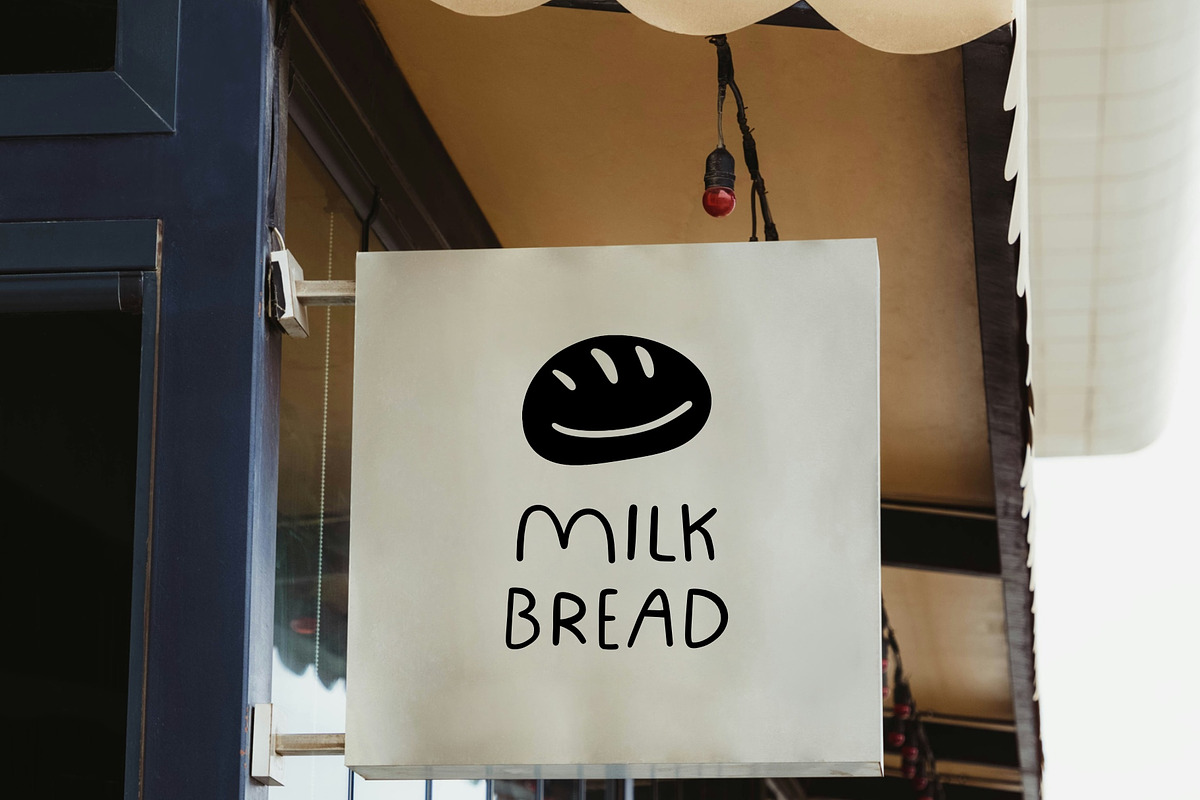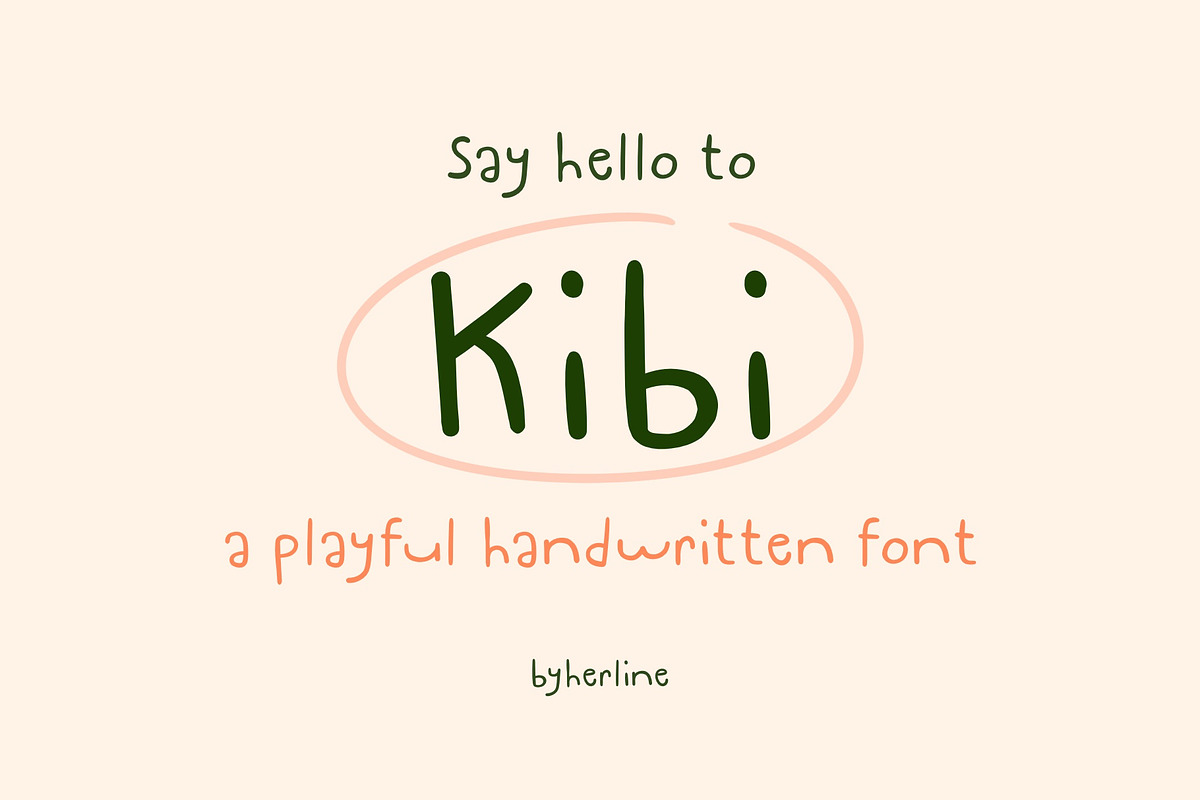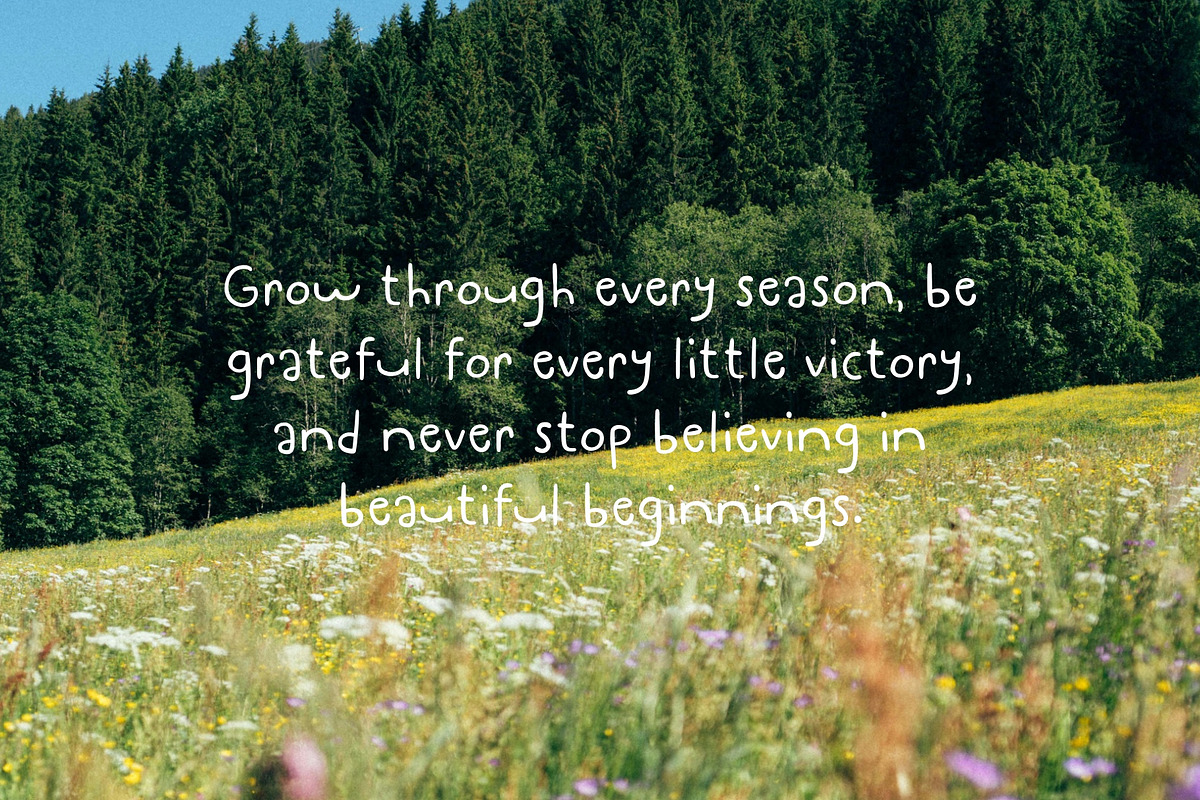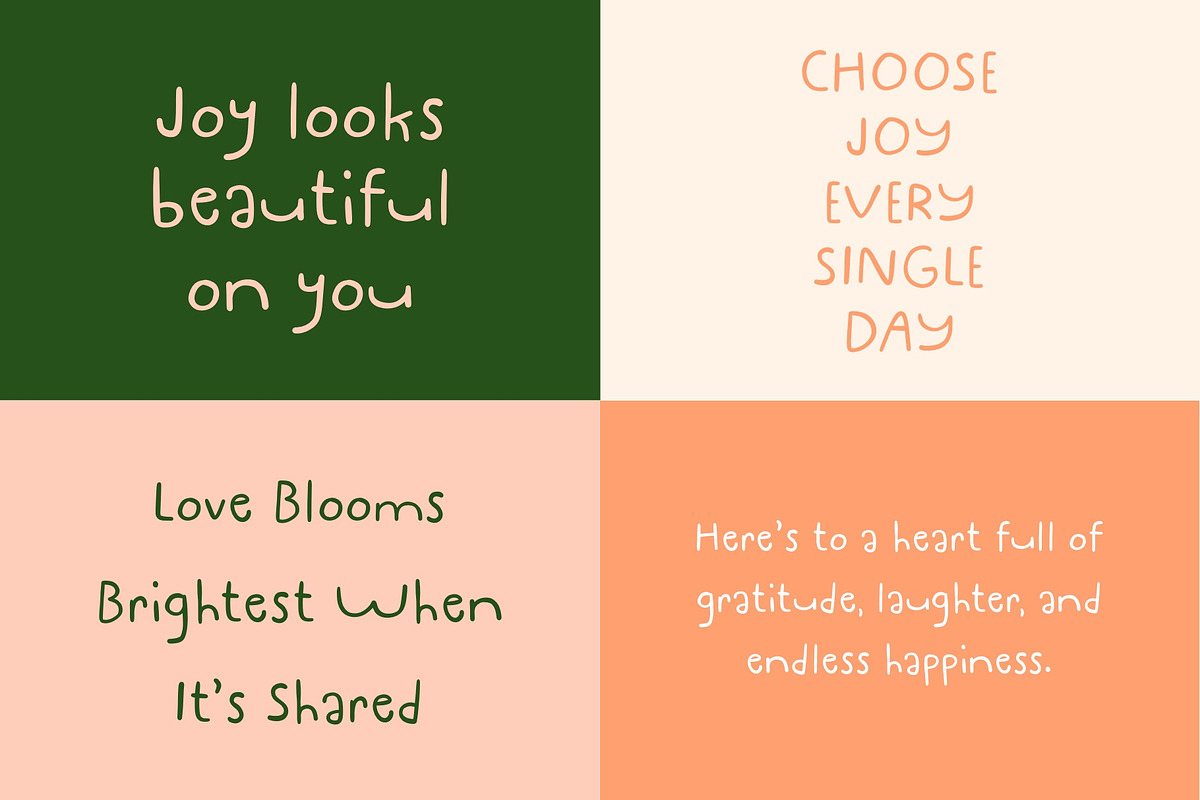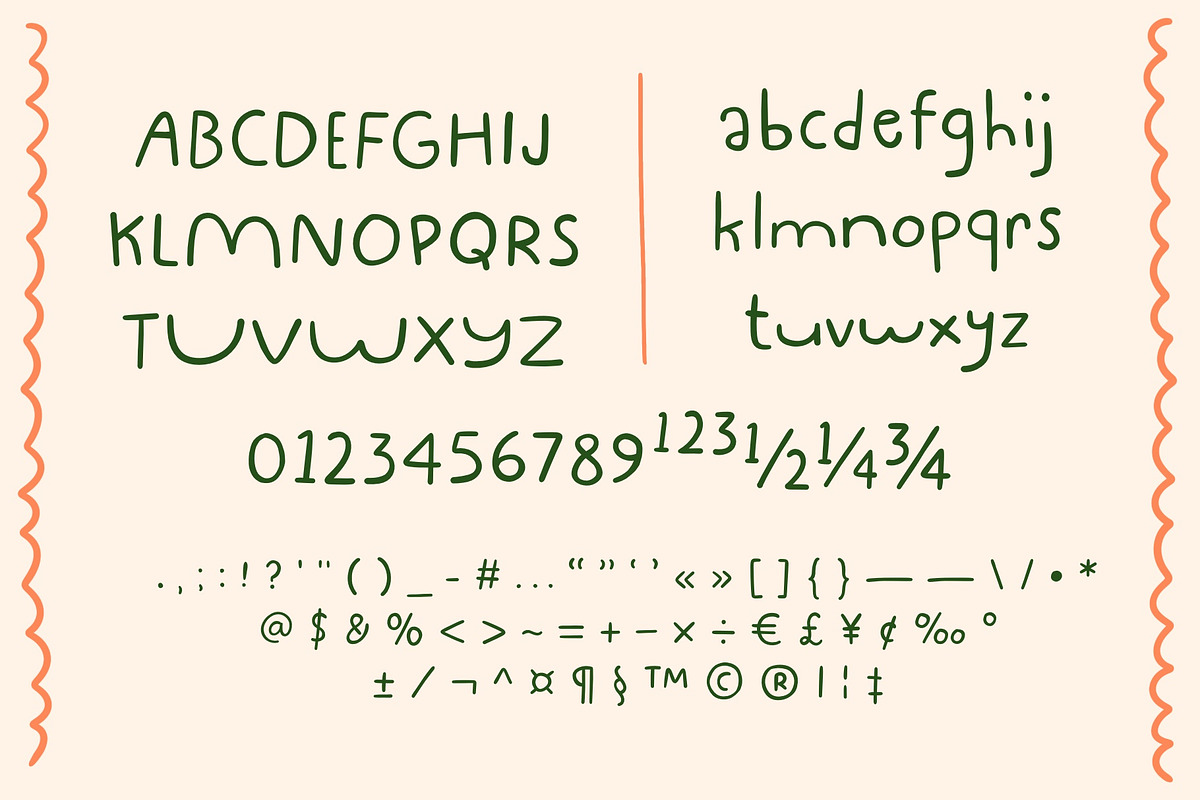
Kibi - A Handwritten font
Kibi is a playful handwritten font full of joyful, brings a friendly touch to every project while remaining clean and easy to read.